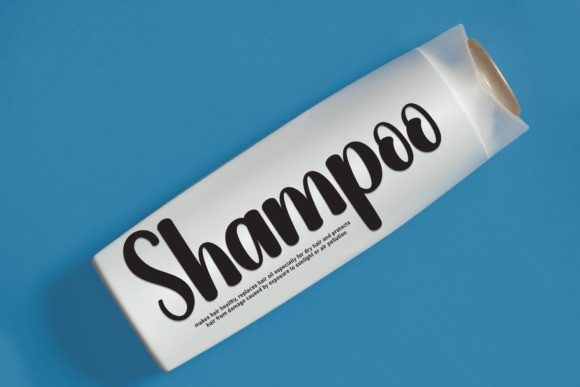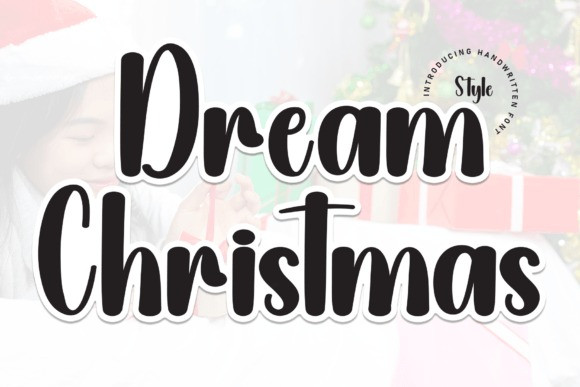
Dream Christmas Script Font
Dream Christmas Script Font is a sweet and cursive handwritten font. This gentle font will look gorgeous on a variety of design ideas. It will add a joyful and romantic touch to each of your projects!